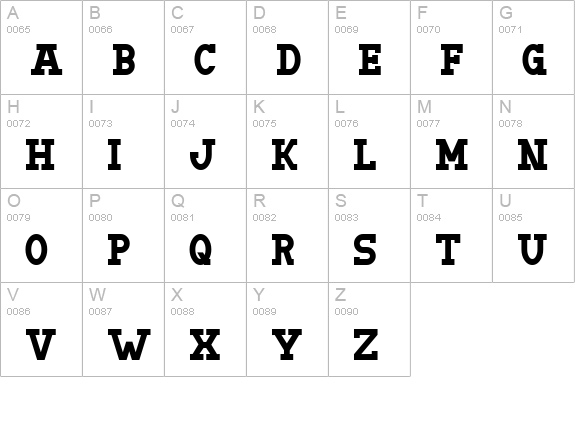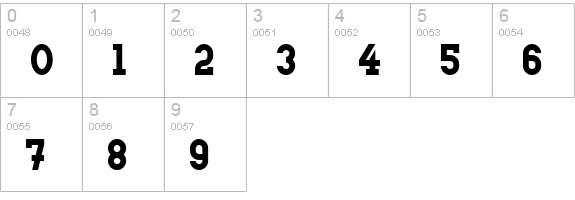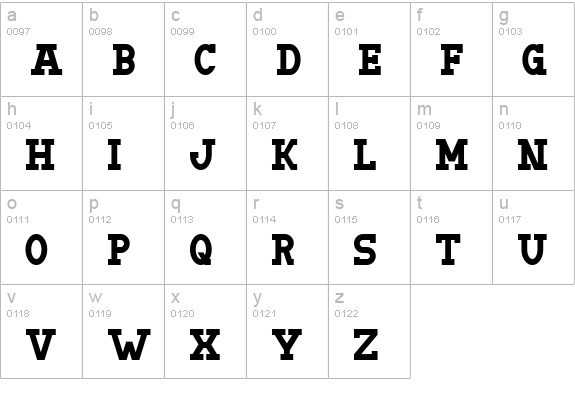
Doergon Font Details
Doergon is a breathtakingly beautiful font that combines modern elegance with a touch of classic charm. Its clean and stylish design makes it perfect for a wide range of projects, from branding and logos to invitations and headlines. This font is meticulously crafted with precision and attention to detail, resulting in a truly unique and captivating typeface. Doergon stands out with its sleek and sophisticated letterforms, each stroke carefully crafted to create a harmonious balance between strength and grace. With its versatile nature, this font effortlessly adapts to any design concept, whether it be a bold statement or a subtle touch of refinement. But what sets Doergon apart is not just its stunning aesthetics – it is also available for free! Yes, you read that right. This font can be freely downloaded at FontsMarket.com, the ultimate destination for high-quality fonts. By offering Doergon as a free resource, we aim to empower designers and creatives to bring their visions to life without any limitations. At FontsMarket.com, we believe that everyone should have access to exceptional design resources, and that includes premium fonts like Doergon. So, whether you're a professional designer or a passionate hobbyist, you can now elevate your projects with this remarkable font without breaking the bank. Download Doergon today and experience the joy of creating with a font that not only looks exquisite but also comes with the added benefit of being freely available. Unleash your creativity and let Doergon be the perfect companion for your next design endeavor.